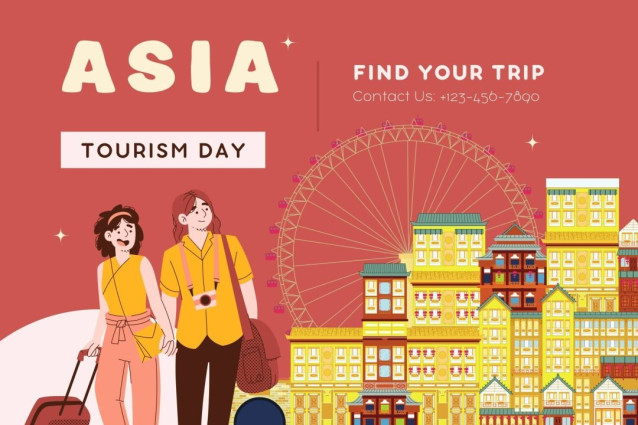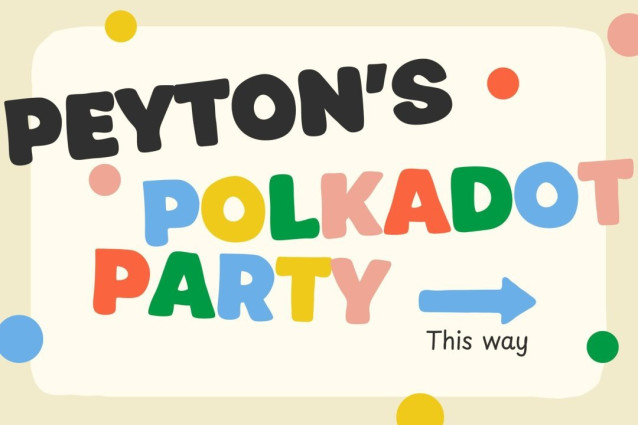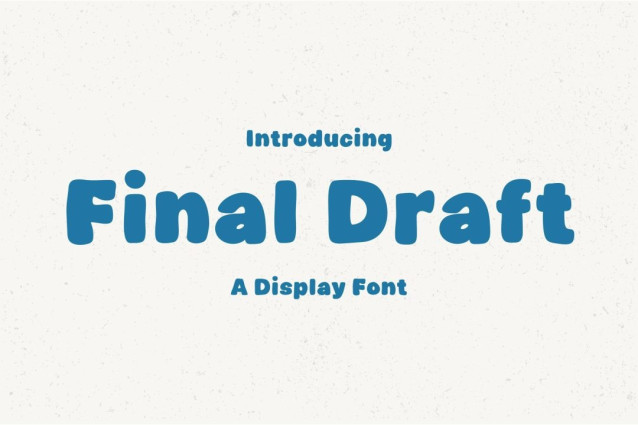
Final Draft Font
Final Draft Font is a chunky, comic, and cartoon display font. With its neat and joyful personality, this font will enhance any project you wish to create!